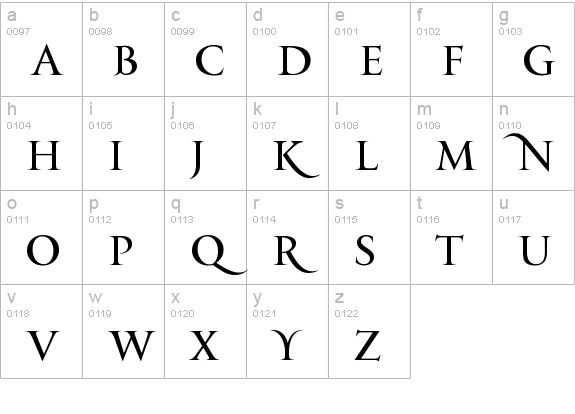
PFMonumentaPro-Regular is the standard, neutral variant in the PFMonumentaPro typeface family \xE2\x80\x94 well suited to general body text, paragraphs, and standard typographic work.
PFMonumentaPro-Regular font is a timeless and elegant typeface that exudes a sense of sophistication and class. Its clean lines and classic design make it perfect for a wide range of projects, from branding to editorial design. The font's versatility allows it to be used in both professional and creative contexts, making it a valuable addition to any designer's toolkit. What makes PFMonumentaPro-Regular font even more appealing is that it is available for free download at FontsMarket.com. This means that you can easily access this high-quality font without any cost, allowing you to elevate your designs without breaking the bank. With its combination of style, elegance, and accessibility, PFMonumentaPro-Regular font is sure to become a go-to choice for designers looking to make a lasting impression.